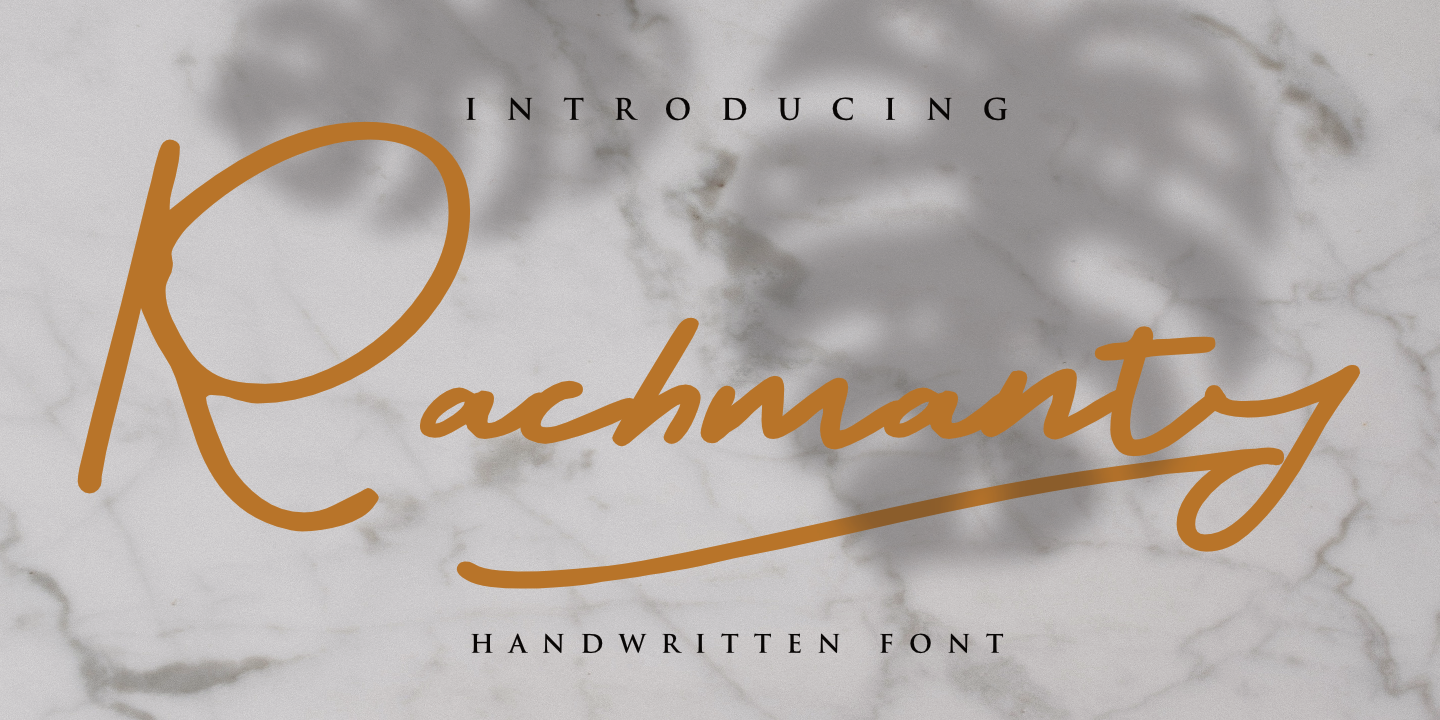
Goodigital13 [Mariyana Mariyana]
Tangerang, Indonesia-based designer of script typefaces. Creations from 2019 include Minim, Signed, Consectetur, The Fox, Magenta, Aliquip, Northen, Judge, Mistake, Asya, English (a signature script), Commodo, Harvest, Nostrud, Summer, Alone, Sinten, Incididunt, Setia, Everbest, Sunset, Saturday, Staies, Zaline, Serious, Darling, Jonesly, Sweet Heart, Devandra, Cinnamon, Follow, Villboard, Einstein (a signature font), Hallem, Morano, Little, Natune, Aishia, Fufu, Vegener, Allinet, Boba, Endorse, Emisha, Edfander, Browen (brush), Reinoto, Lova, Mono, Lovina, Melanda.
Typefaces from 2020: Aroma Garlic, Home Decor, Simple Home, Alan Walker (a signature script), Hantaran, Rachmanty, Stuart Collins, Love Curly, Maulida, Love Forever, Love Sweets, Perfect Love, Jasmine Tea (from a child's hand), Alandria, Fatimah, Pendekar, Lassie, Mongolia, Abimanyu, Soundwind, Attaurel, Evil Eye, Ginan, Crazy Zombie, Halloween Day, Vegan Food, Aquascape, Bucinta, Household, Cutie Cat, Cutie Shop, Provincia, Carita, Maroko, Cinestory, Ollus, Bomboloni (a lively script), Lemos (a brush font), Salting (a monoline script), Alamanda, Missive, Endossement, Lannia, Annasteel, Hillary, Bensue, Bellorina, Paramore, Expose, Emillia Natasha, Caribean, Camelia Glow, Scootish, Kaliarta, Juliant, Sally, Kannabelle, Eilbert, Vinitry, Stevania, Kaliarta, Devandra.